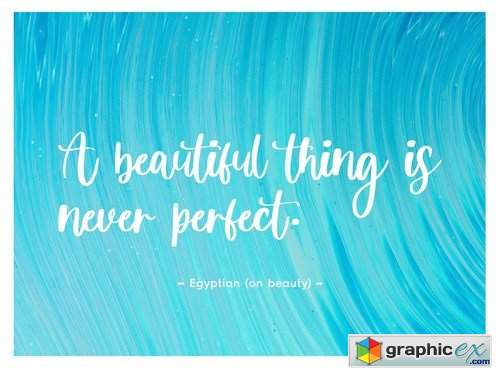
Victoria YH - Modern Script Font
Victoria is a modern script font.
Victoria is perfect for product packaging, branding project, megazine, social media, or just used to express words above the background.